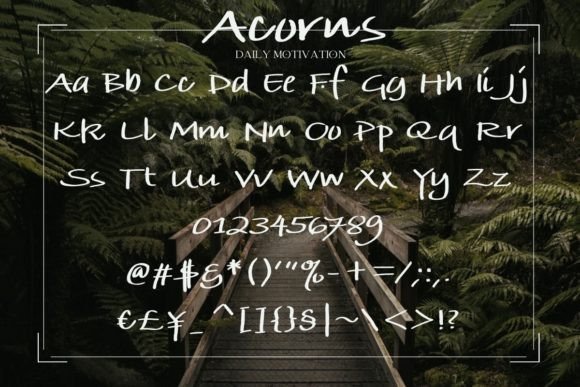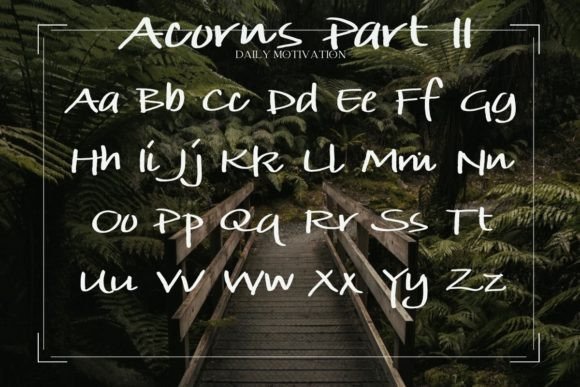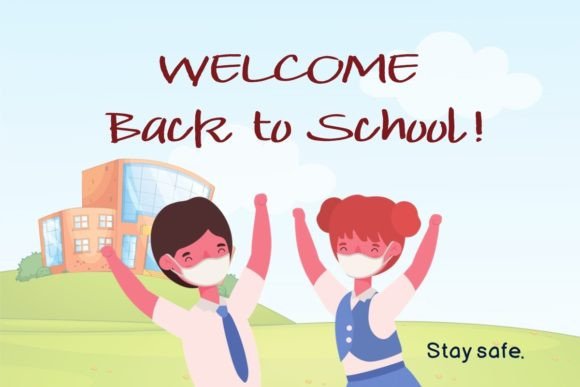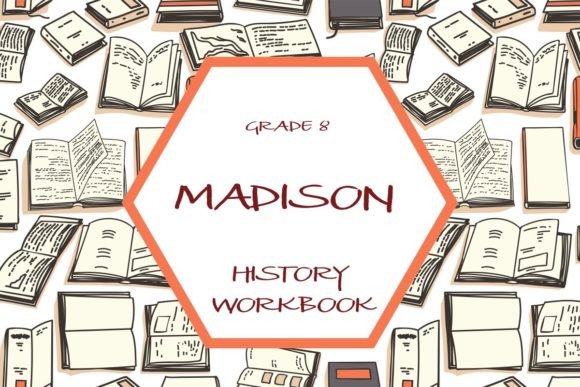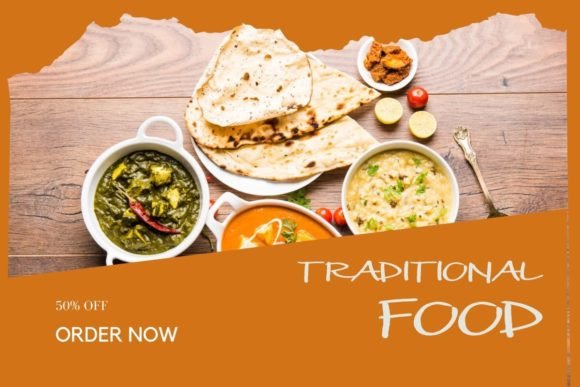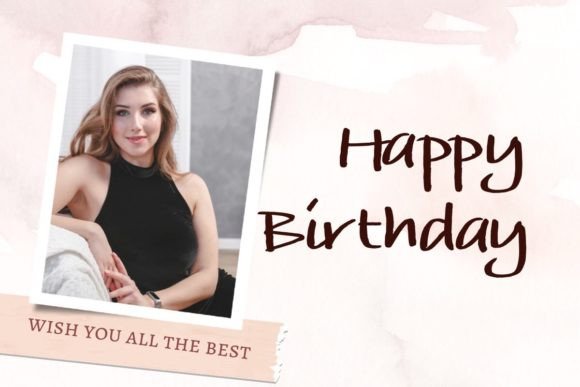
Introducing Acorns Font: A Whimsical Handwritten Font for Creative Designs
Are you a designer, crafter, or DIY enthusiast looking for a unique and versatile font to elevate your creative projects? Look no further than Acorns Font, a charming handwritten font that comes in two distinct styles. With its playful and approachable feel, Acorns Font is perfect for a wide range of applications, from logos and branding to wedding invitations, business cards, and social media graphics.
What Makes Acorns Font Special?
Acorns Font is a carefully crafted handwritten font that exudes a sense of warmth and personality. Its two styles offer flexibility and versatility, allowing you to mix and match to create visually appealing combinations. The font’s whimsical feel makes it especially suitable for designs aimed at children, such as children’s books, educational materials, and kids’ party invitations.
Endless Design Possibilities with Acorns Font
Acorns Font is an incredibly versatile font that can be used for a wide range of design projects, including:
- Logos and Branding: Create a unique and memorable logo for your business or brand with Acorns Font.
- Wedding Invitations: Add a touch of whimsy and romance to your wedding invitations and stationery.
- Business Cards: Stand out from the crowd with custom business cards featuring Acorns Font.
- Greeting Cards: Create personalized and heartfelt greeting cards for special occasions.
- Posters and Magazines: Use Acorns Font to add a playful touch to your posters, magazines, and other print materials.
- Social Media: Elevate your social media graphics and make your content more engaging with Acorns Font.
- Planner Prints: Add a personal touch to your planner prints and journals.
- Websites: Use Acorns Font to create a unique and memorable online presence.
Perfect for Crafters and DIY Enthusiasts
Acorns Font is not just limited to digital designs; it’s also perfect for crafters and DIY enthusiasts. Use it to create:
- T-Shirts: Design custom t-shirts with Acorns Font for a unique and personalized look.
- Mugs: Add a touch of personality to your mugs with custom designs featuring Acorns Font.
- Posters: Create eye-catching posters for your favorite quotes, lyrics, or messages.
Why Choose Acorns Font?
With Acorns Font, you can:
- Add a Personal Touch: Bring a sense of personality and whimsy to your designs.
- Stand Out from the Crowd: Use a unique font that sets you apart from others.
- Enhance Your Brand: Create a consistent brand identity with Acorns Font.
Acorns Font is a versatile and charming handwritten font that’s perfect for designers, crafters, and DIY enthusiasts. With its two styles and wide range of applications, it’s an excellent addition to any creative project. Whether you’re looking to create a unique logo, design custom t-shirts, or add a personal touch to your social media graphics, Acorns Font is the perfect choice. So why wait? Download Acorns Font today and bring your creative ideas to life!